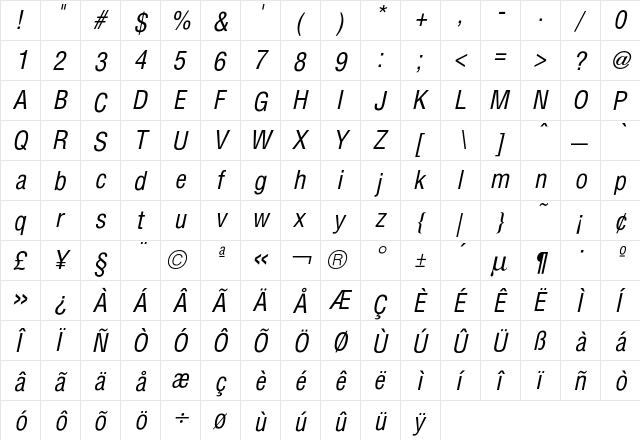
Hallmarke CondBookOblique
Design Context for Hallmarke Typeface
Hallmarke is a composed and adaptable typeface that performs quietly and consistently across a wide range of design contexts. The slanted form adds forward momentum and visual energy. Its narrow stance lets it pack a punch even in space-constrained designs.
Pro Tip: Try Hallmarke for annotation and caption copy alongside an upright companion — the contrast in angle creates a dynamic but ordered typographic system.